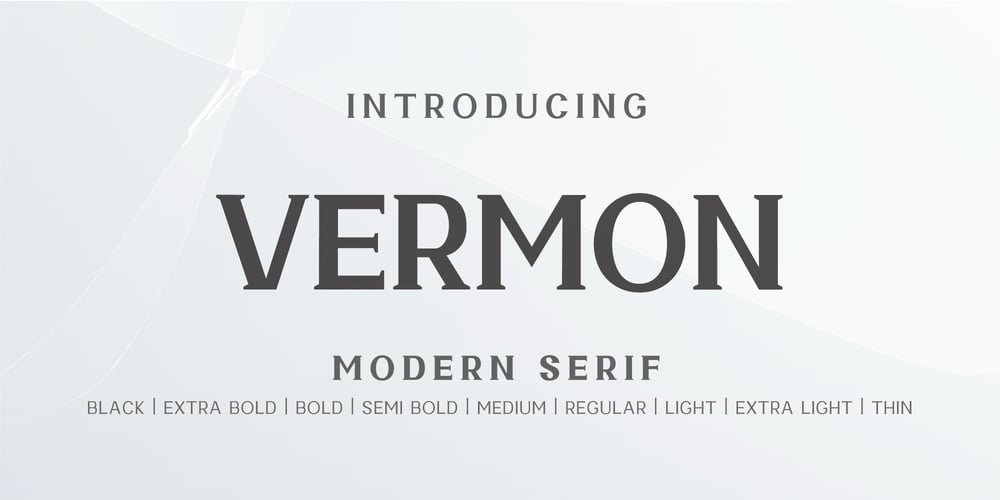
Vermon Font Family was designed by Reza Mukhtazar and published by Rezastudio. Vermon contains 9 styles and family package options. Vermon fonts stands as a testament to sleek modernity and timeless elegance. Serif fonts, with their clean lines and minimalistic charm, offer a versatile canvas for creative expression across various design mediums. From conveying corporate professionalism to infusing digital interfaces with clarity and readability, fonts erigo emphasizes their adaptability and enduring appeal in capturing attention and conveying messages effectively in today’s visually driven landscape.